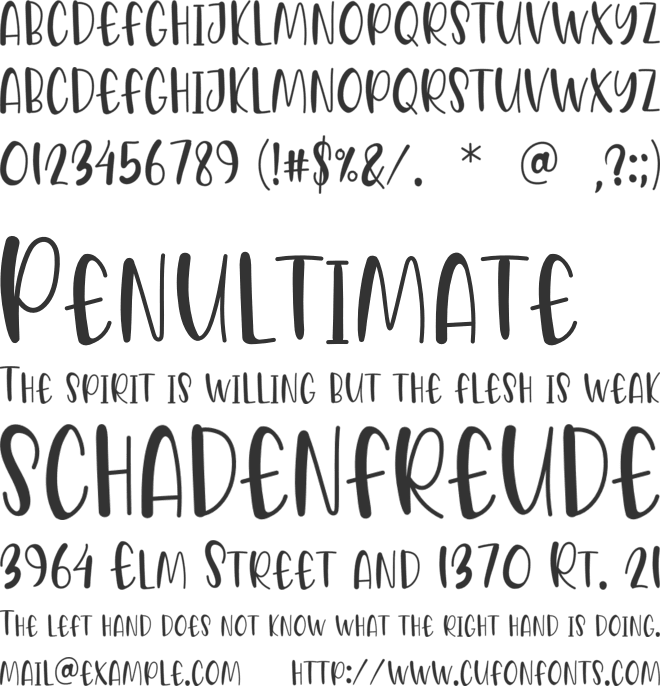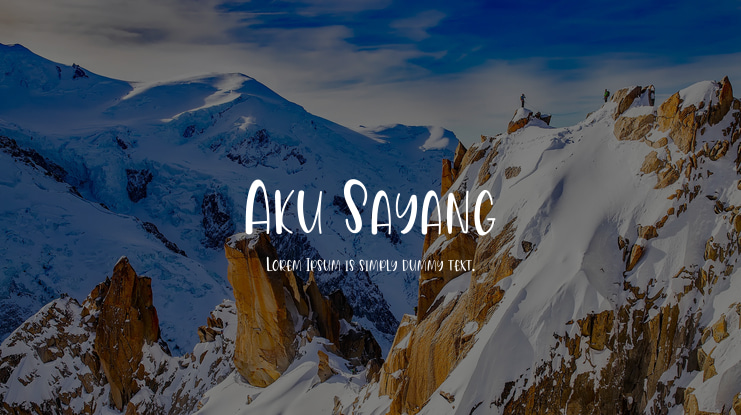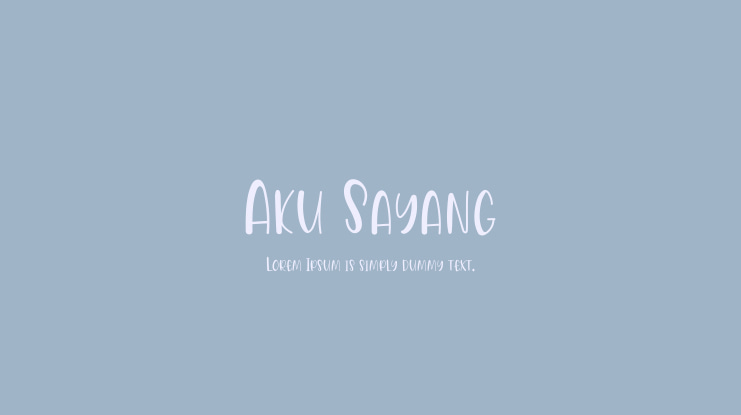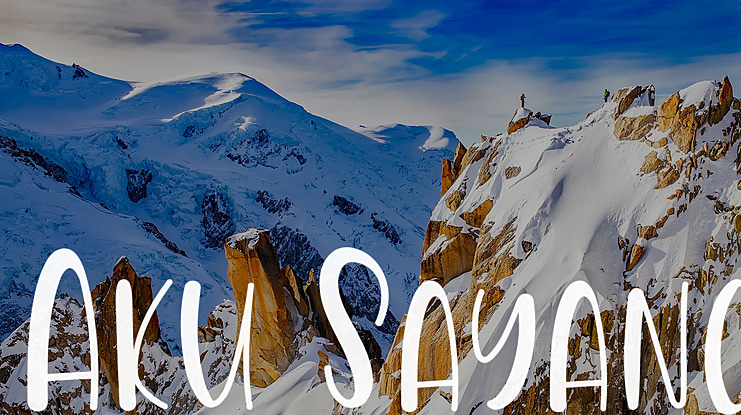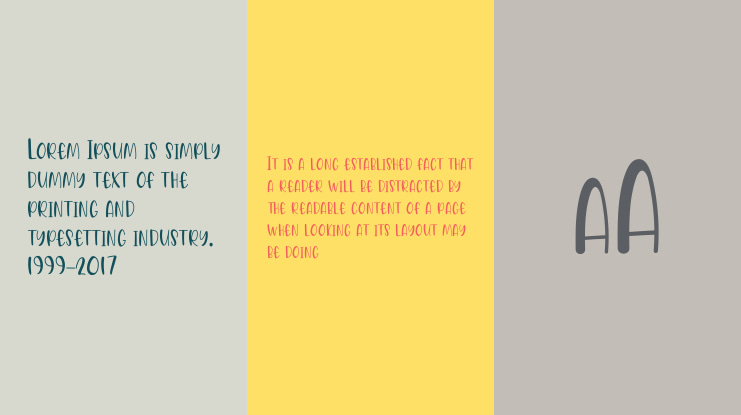
Aku Sayang Font
DETAILS the latest style letters are perfect for wall displays, wedding invitations, social media post logos, advertisements, product packaging, product designs, labels, photography, watermarks, invitations, stationery, and any project that requires taste handwriting.